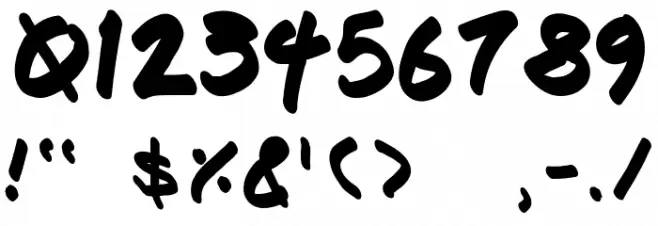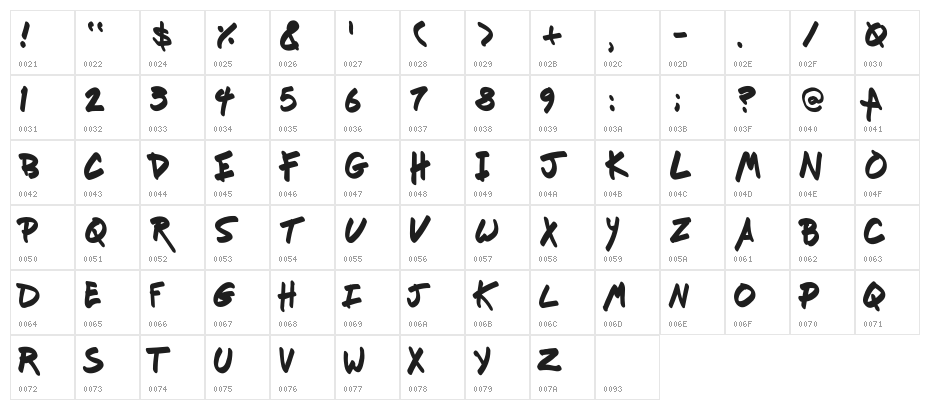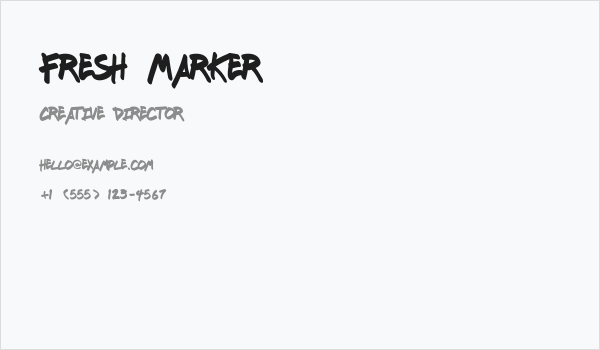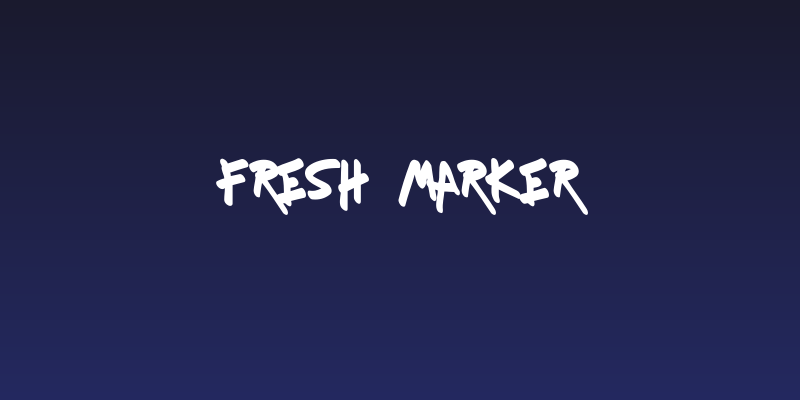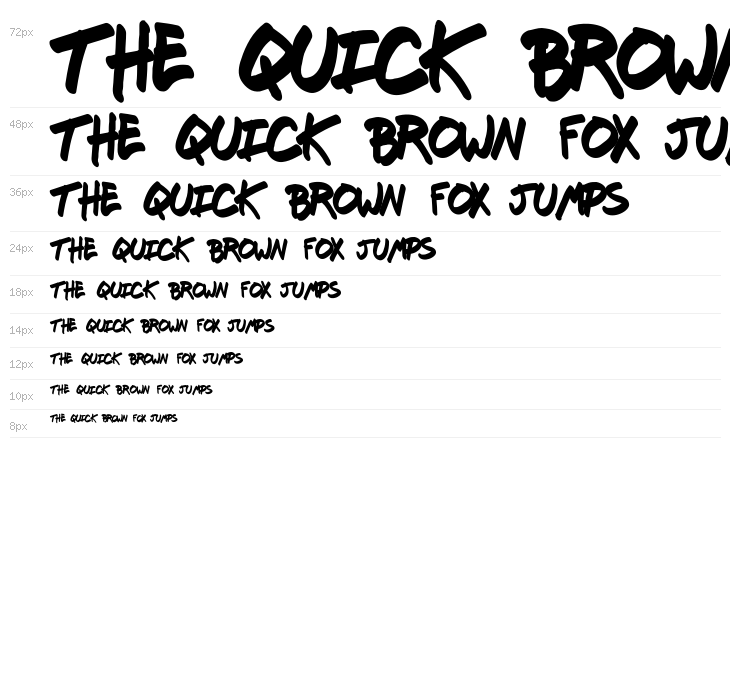
Fresh Marker Font
Fresh Marker Description
This font exudes a lively and energetic vibe, reminiscent of bold marker strokes. The characters are thick and rounded, giving them a playful and informal appearance. The uppercase and lowercase letters maintain a consistent style, with a slightly irregular baseline that enhances the handwritten feel. Numbers and special characters are equally bold, ensuring they stand out prominently. The overall design is casual yet impactful, making it suitable for projects that require a personal touch.
| Proposed Projects | Ideal for posters, social media graphics, children's book covers, and any project needing a playful, informal touch. |